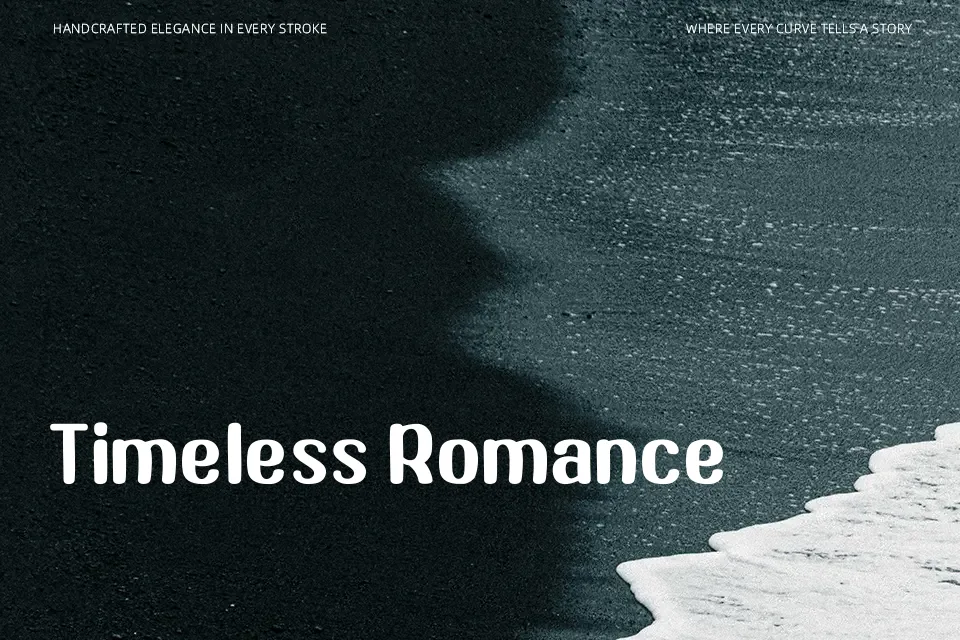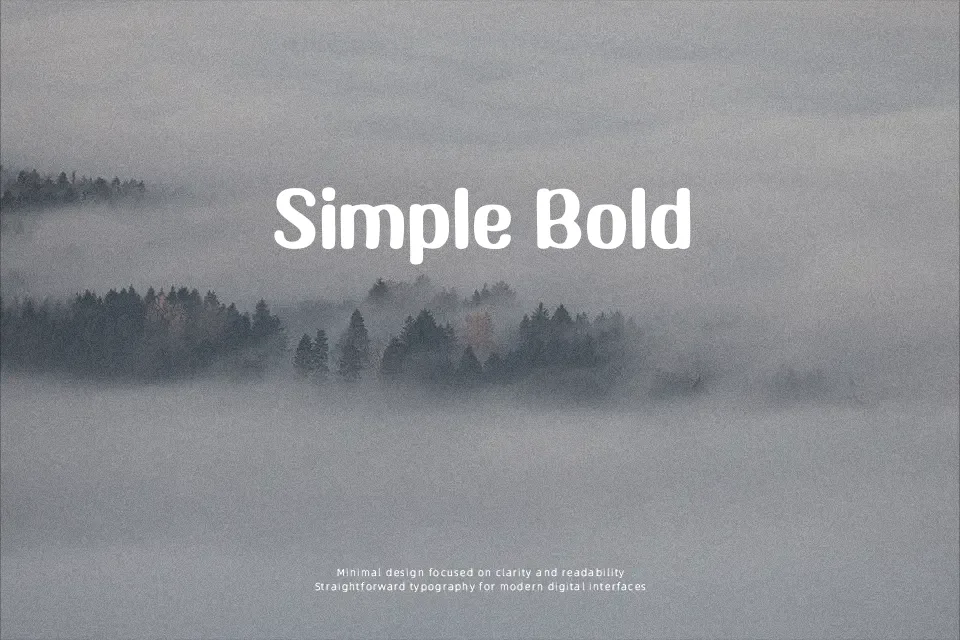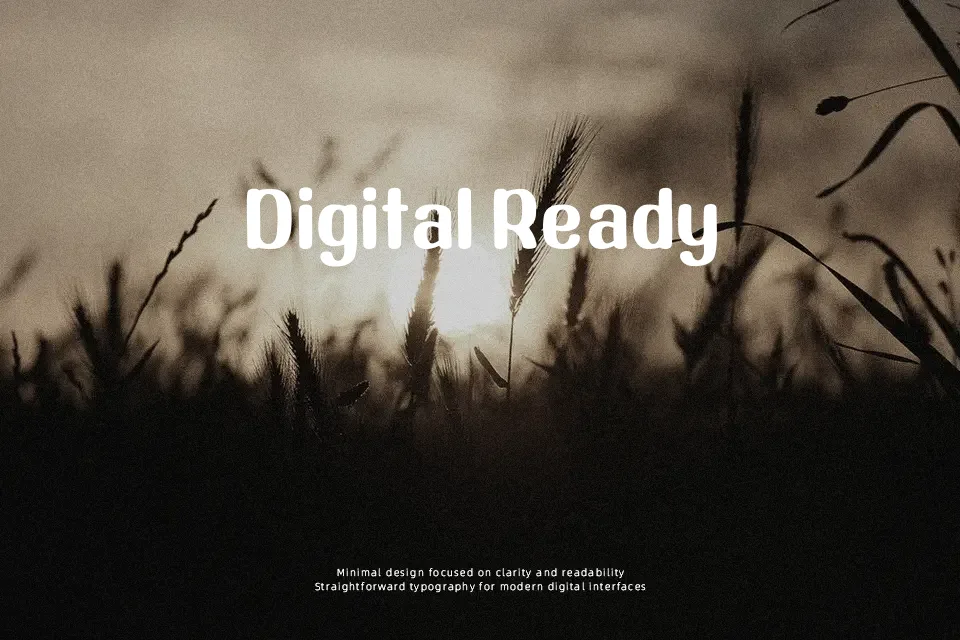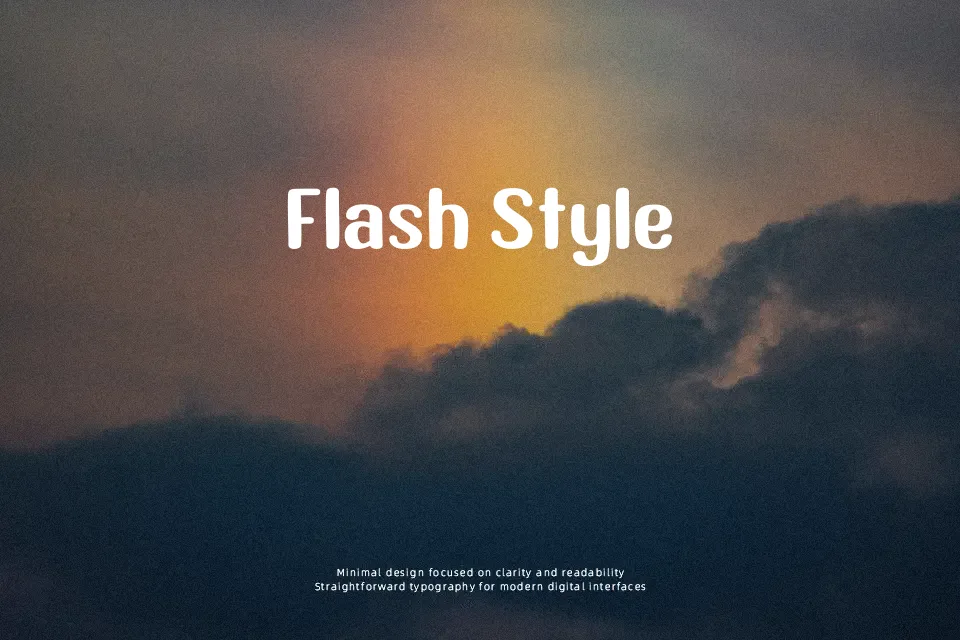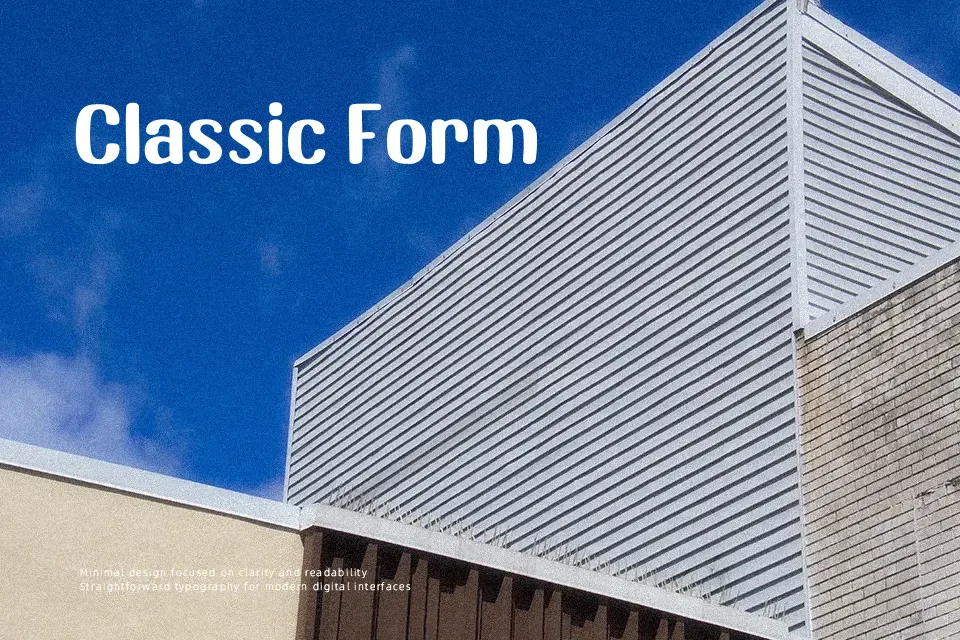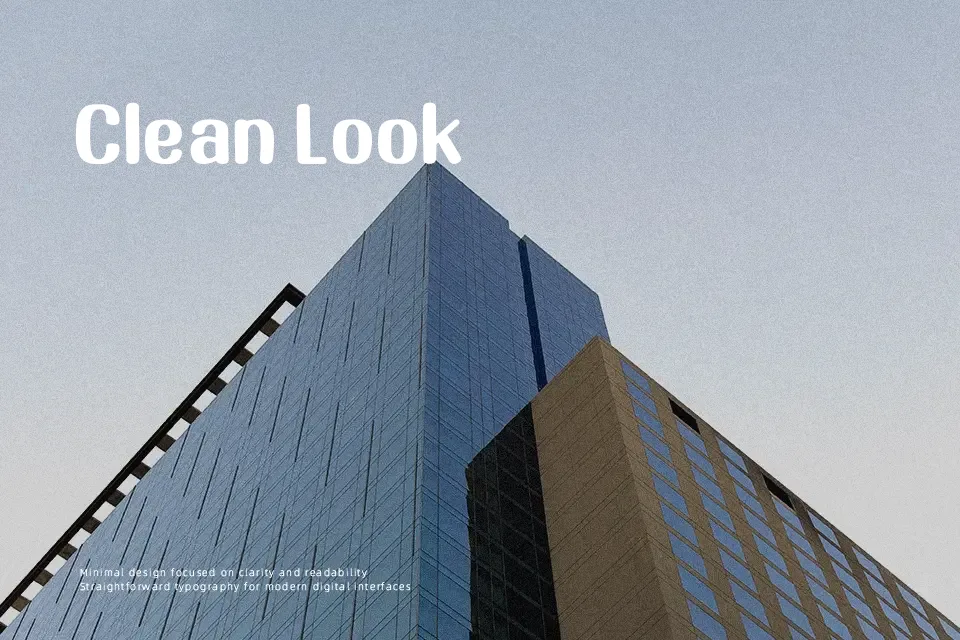
Ponypen Font
Ponypen Font brings a bold, energetic rhythm to modern display typography. The letterforms display thick, marker-like strokes that immediately command attention in large applications. With tight but balanced spacing, the characters link together smoothly to create impactful, highly readable headlines. This design naturally conveys a playful and dynamic atmosphere, making it highly effective for music posters, casual branding, and social media graphics. The dense forms reduce comfort during extended reading, so it becomes much less effective for long paragraphs. However, when utilized in short, punchy statements, the heavy stroke weight and confident curvature ensure excellent visibility and strong visual character.
esports team logos
casual product packaging
website hero headlines
spreadsheet data
Perfect for branding, logo, and poster, with a bold and brush style.